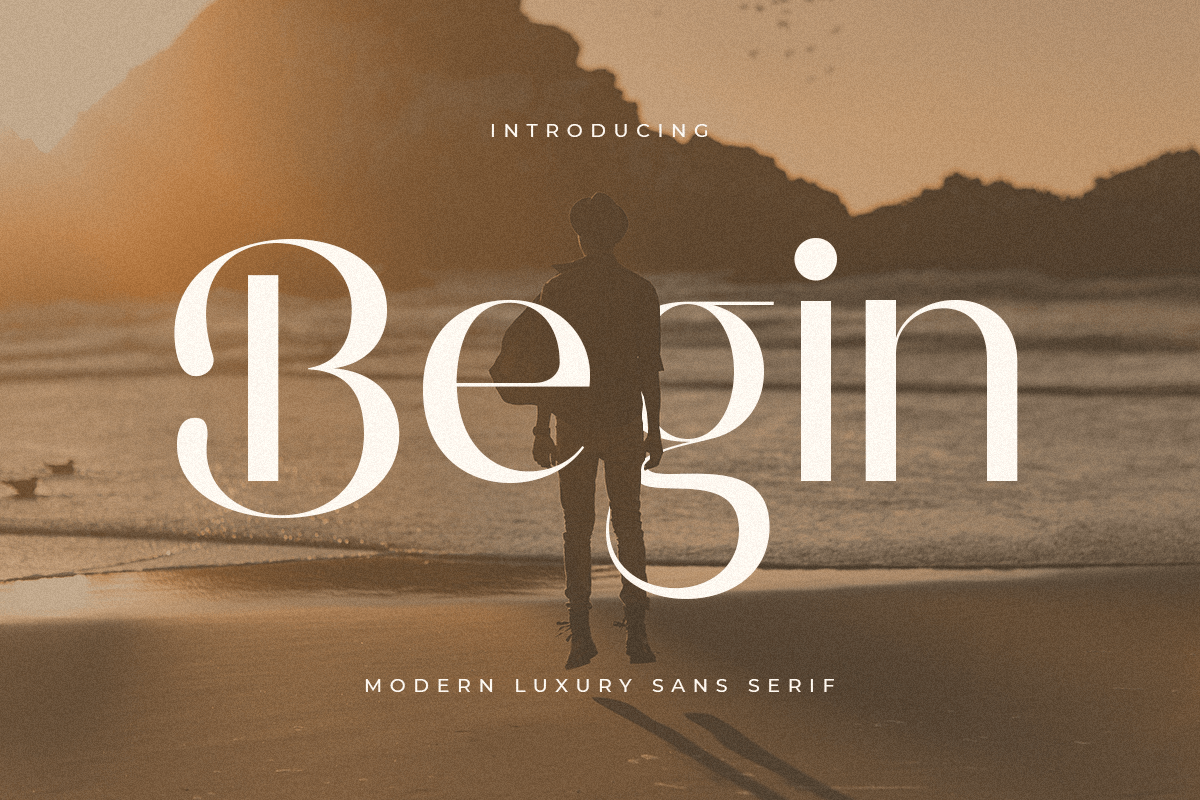
Begin
-Modern Luxury Sans Serif
Begin
Begin is a Modern Luxury Sans Serif
A new Sans Serif font that we created special for project needs, with extra unique shape and ligatures that will add your brand value. It so nice to leverage designer or product owner that need solutions to make their design look more classy and modern. And specially for Begin font, We prepared any alternate characters to help you create unlimited variations for your creative needs specially for logotype or wordmark.